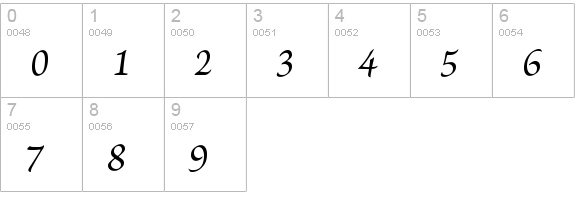
Brioso Pro Medium Italic Caption is a balanced, medium-weight, italic variant in the Brioso typeface family \xE2\x80\x94 well suited to sub-headlines, navigation, and balanced editorial work.
Brioso Pro Medium Italic Caption is a sophisticated and elegant font designed for adding a touch of modernity and flair to your projects. With its sleek and stylish look, this font is perfect for creating eye-catching captions, headings, and other design elements. The italicized style adds a touch of dynamism and emphasis to your text, making it stand out beautifully. This font is not only visually appealing but also highly versatile, suitable for a wide range of design projects including branding, editorial design, and advertising. Its balanced proportions and refined curves make it a delightful choice for conveying a sense of professionalism and creativity. The best part is that Brioso Pro Medium Italic Caption is available for free download at FontsMarket.com. You can easily access this premium font and enhance your designs with its distinctive charm without any cost. Don't miss out on the opportunity to elevate your projects with this stunning typeface.